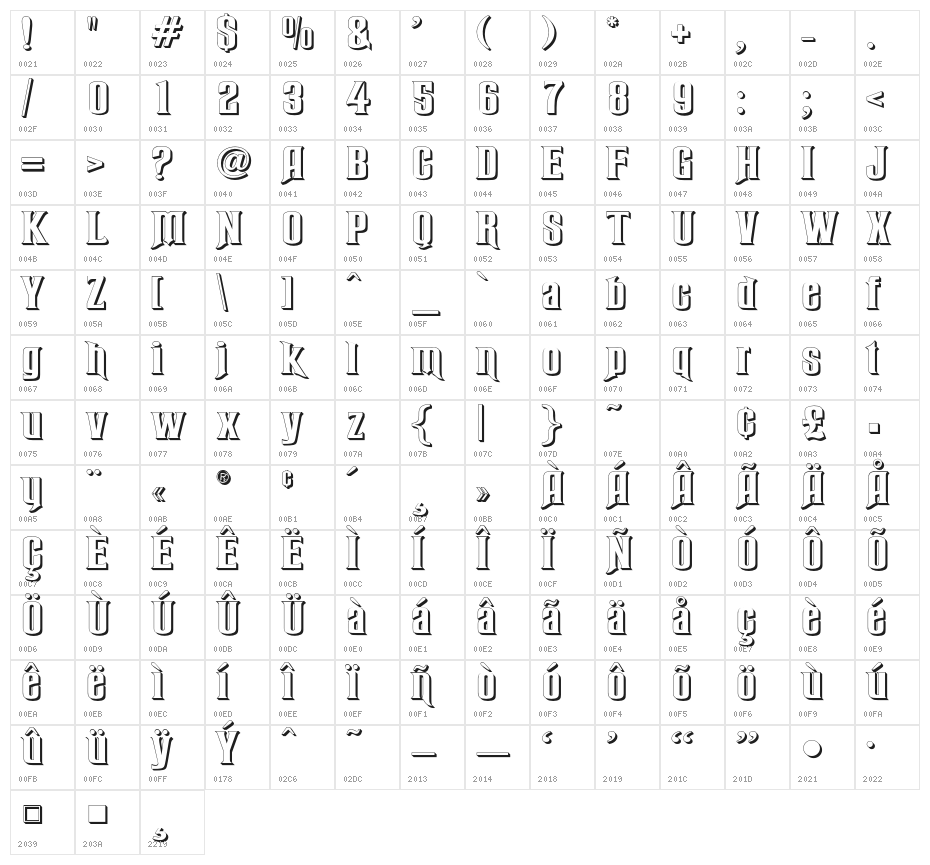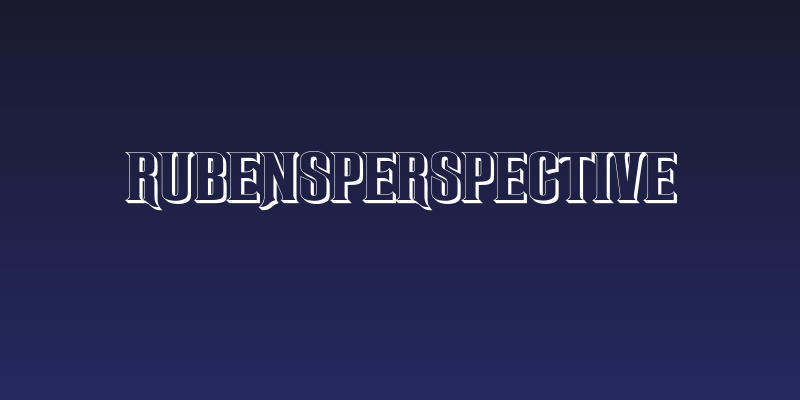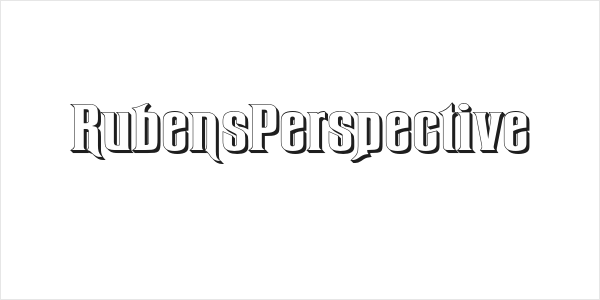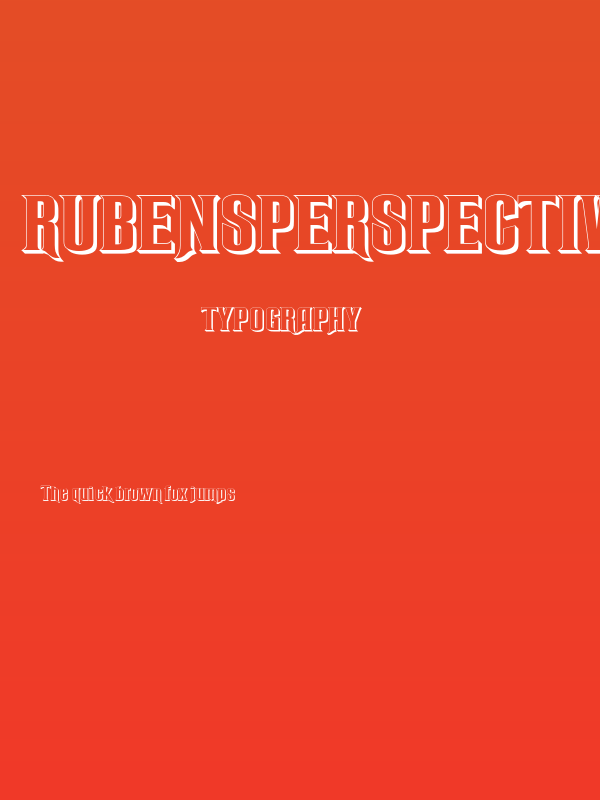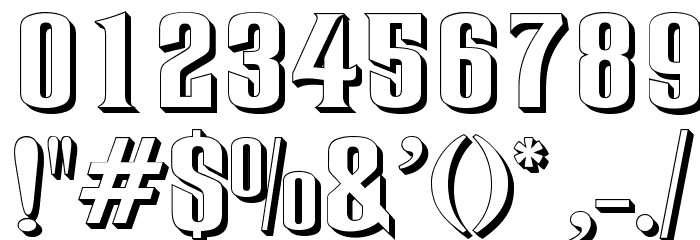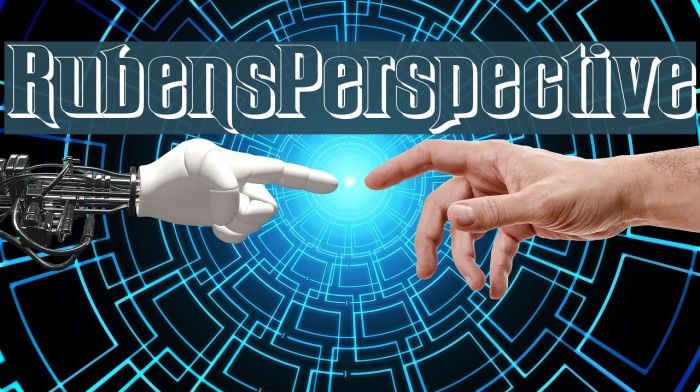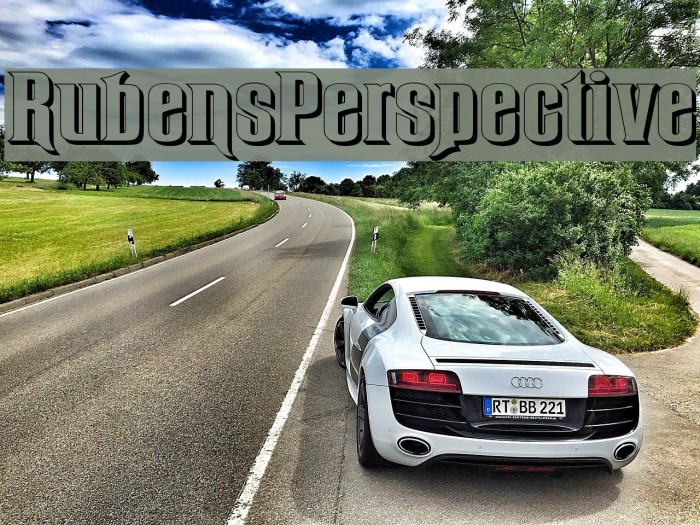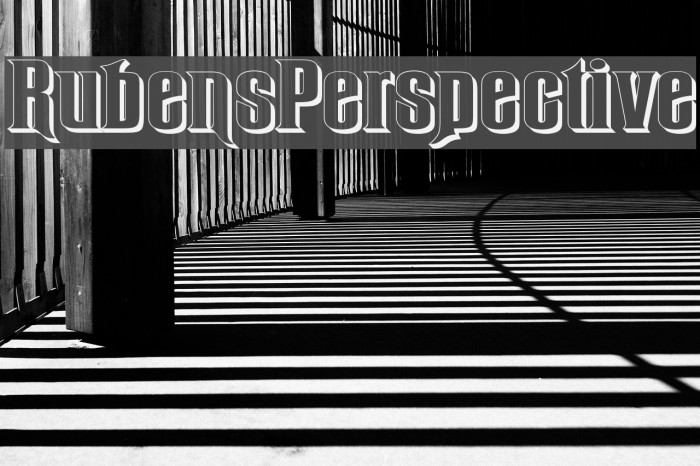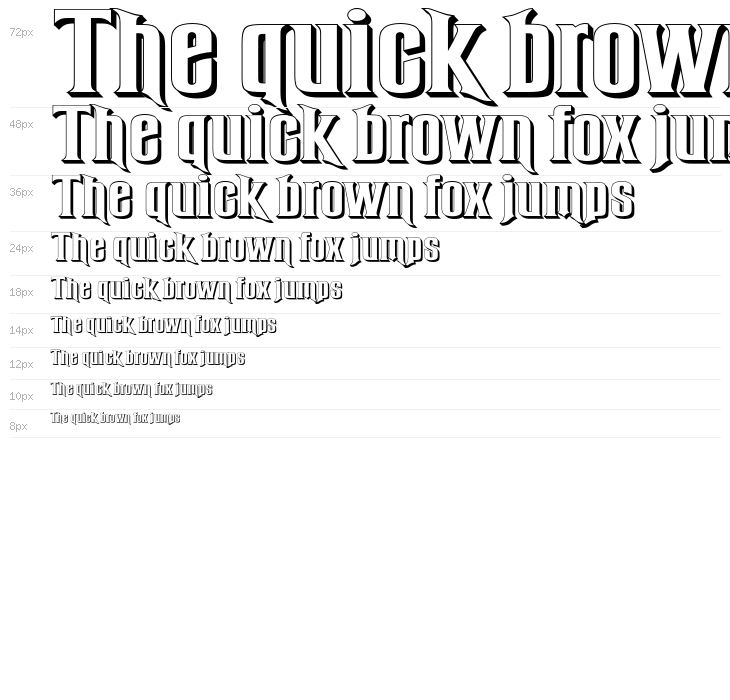
RubensPerspective Font
RubensPerspective Description
This font features a bold, decorative style with a three-dimensional effect that gives it a unique perspective. The uppercase letters are characterized by sharp, angular lines and a shadow effect that adds depth. The lowercase letters maintain the same boldness and angularity, ensuring consistency across the typeface. The numerals are equally bold and follow the same design principles, making them stand out. Special characters are designed with the same attention to detail, ensuring they complement the overall aesthetic. This font's distinct style makes it ideal for eye-catching designs.
| Proposed Projects | Ideal for posters, logos, and headlines where a striking, bold appearance is desired. |